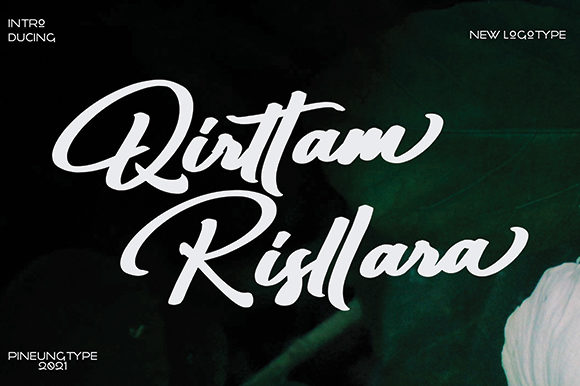
Unleash the artistry of calligraphy with Qirttam Risllara, a script font that dances across your designs with elegance and grace. Inspired by the beauty of handwritten letters, this font captures the essence of timeless craftsmanship.
Embark on a creative journey with Qirttam Risllara, an innovative font that harmonizes classic calligraphy with modern flair. Experience the joy of designing with a font that breathes life into your projects, transforming them into captivating works of art.
Qirttam Risllara is more than just a font; it's an expression of individuality, a reflection of your unique style. From heartfelt messages to stunning logos, this font will elevate your designs to new heights. Its enchanting glyphs and swashes add a touch of magic, making every word a visual masterpiece.
Embrace the versatility of Qirttam Risllara, a font that seamlessly adapts to a multitude of creative endeavors. Whether you're crafting heartfelt invitations, designing eye-catching posters, or creating personalized gifts, this font will effortlessly elevate your projects.
Immerse yourself in the world of Qirttam Risllara and be mesmerized by its charm. Let your imagination run wild as you explore endless design possibilities. With this font as your companion, your creativity will flourish, and your projects will shine brighter than ever.
Don't settle for ordinary fonts; embrace the extraordinary with Qirttam Risllara. Experience the joy of creating with a font that captures the elegance of calligraphy and the freshness of contemporary design. Make a statement with every project and let your creativity soar.